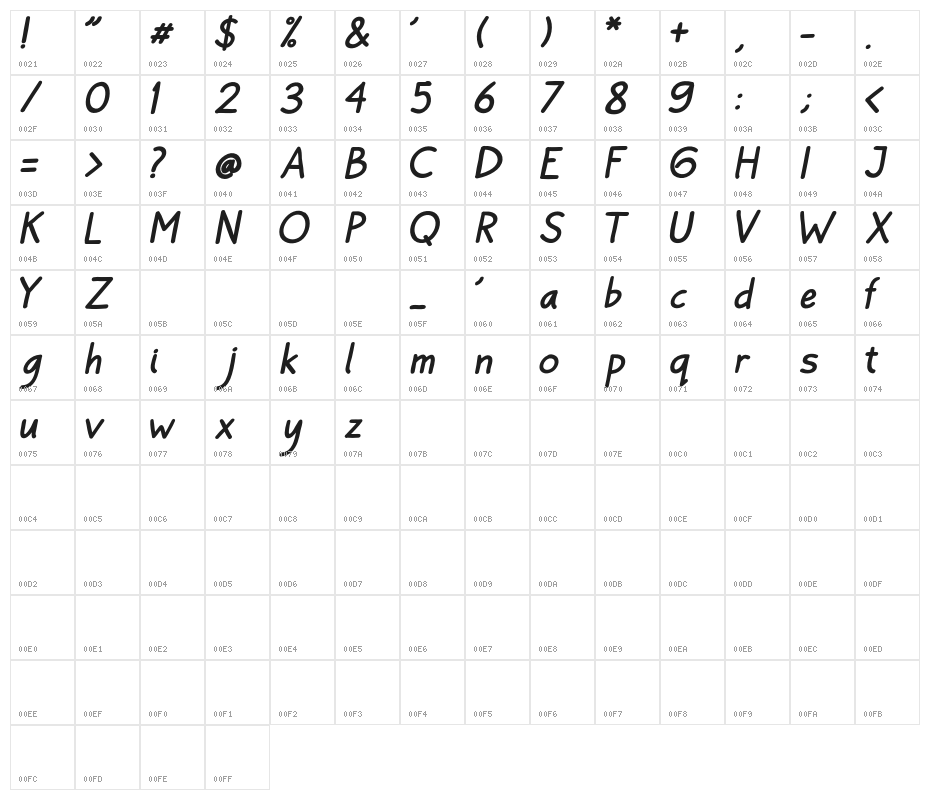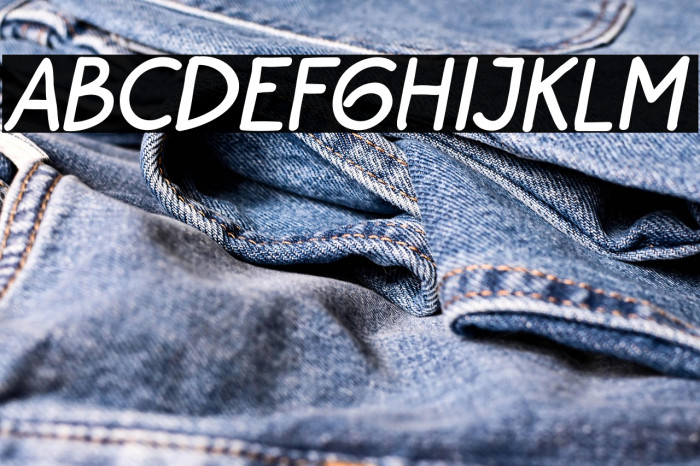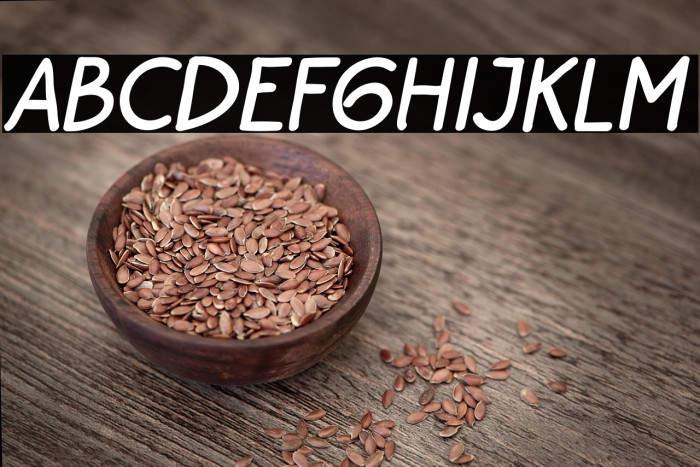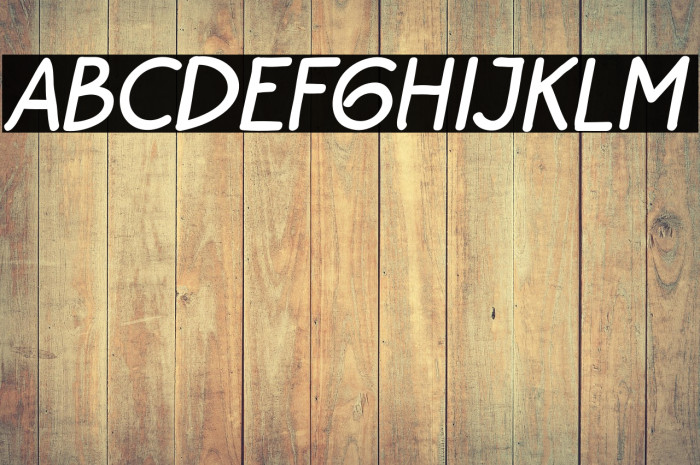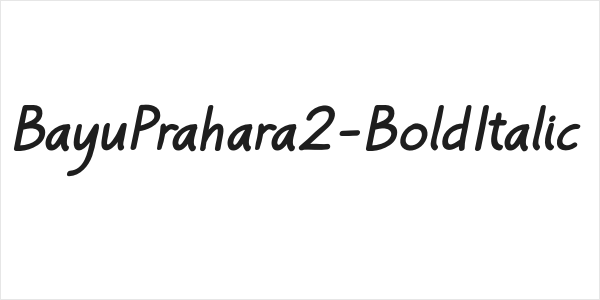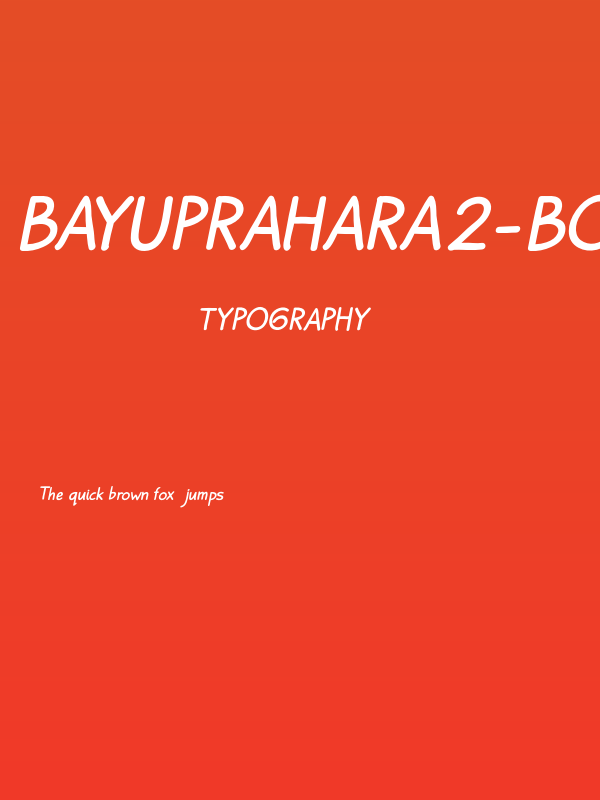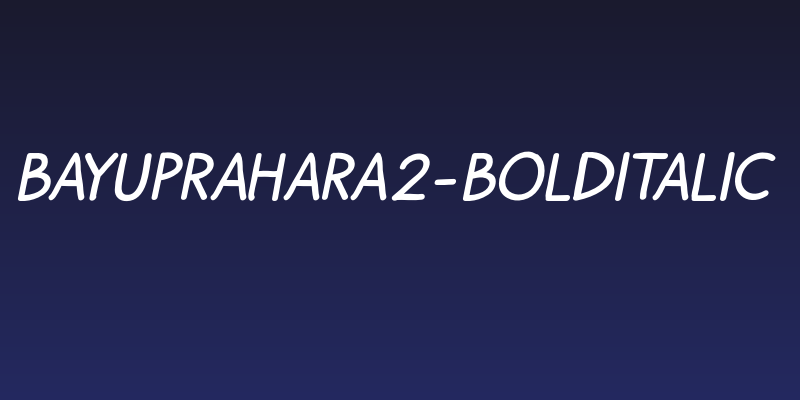
BayuPrahara2-BoldItalic Font
BayuPrahara2-BoldItalic Description
This font features a bold and italic style, characterized by smooth, flowing curves and a slightly slanted orientation. The uppercase letters are distinct and well-defined, while the lowercase letters maintain a consistent fluidity, enhancing readability. The numerals are rounded and clear, complementing the overall design. Special characters are crafted with attention to detail, ensuring they blend seamlessly with the rest of the font. This typeface exudes a modern yet casual vibe, making it versatile for various applications.
Use CaseLogos, Headlines, Creative projects
Proposed ProjectsIdeal for branding, advertising, and creative projects that require a modern and approachable feel.